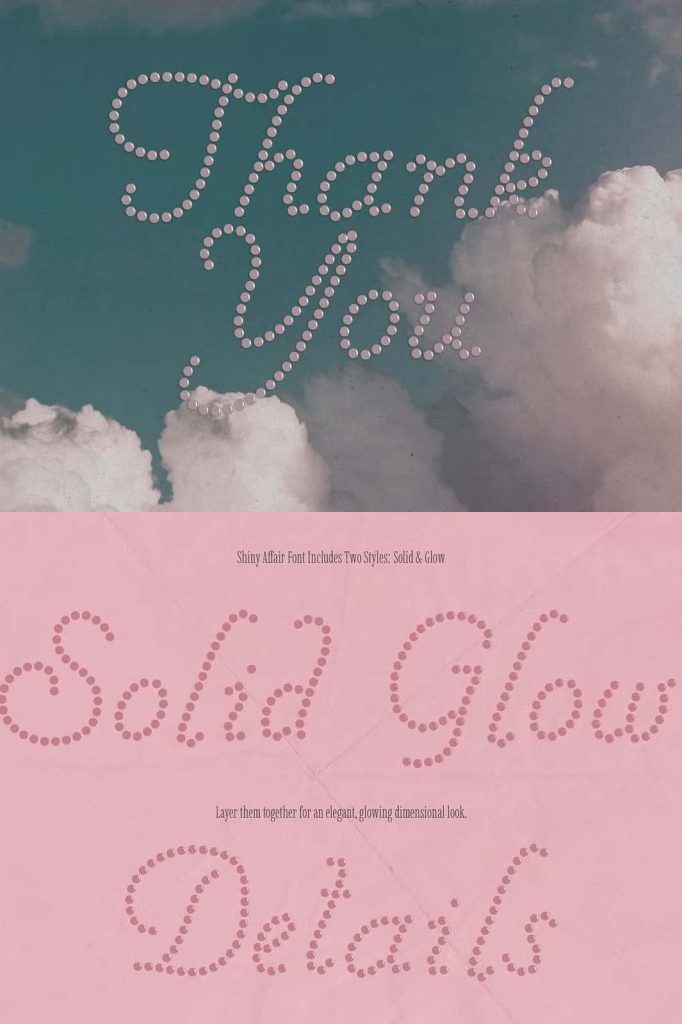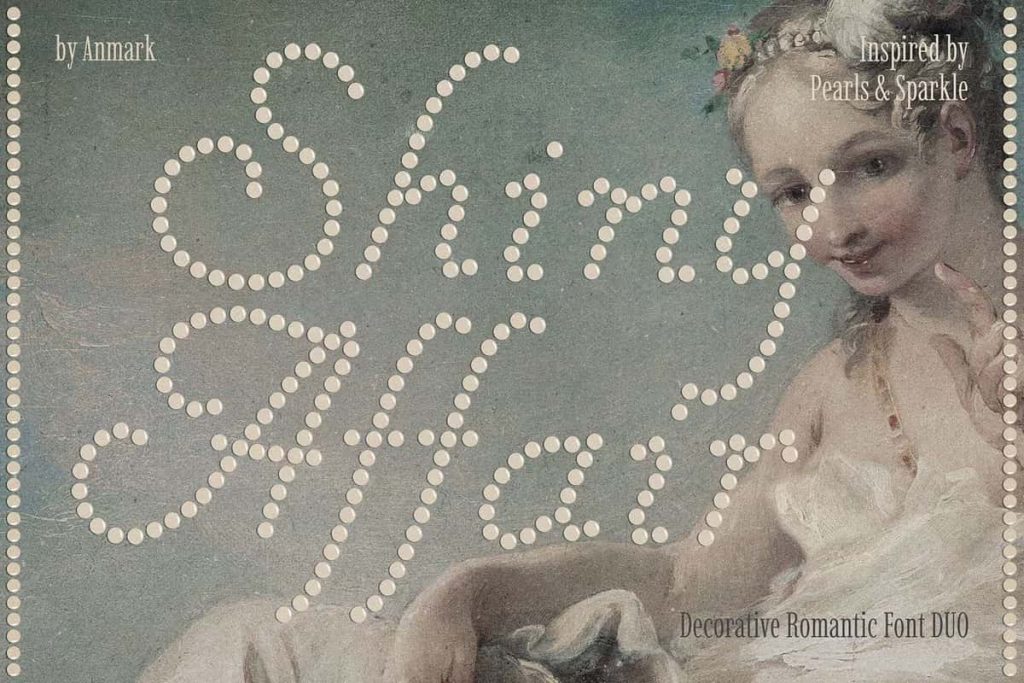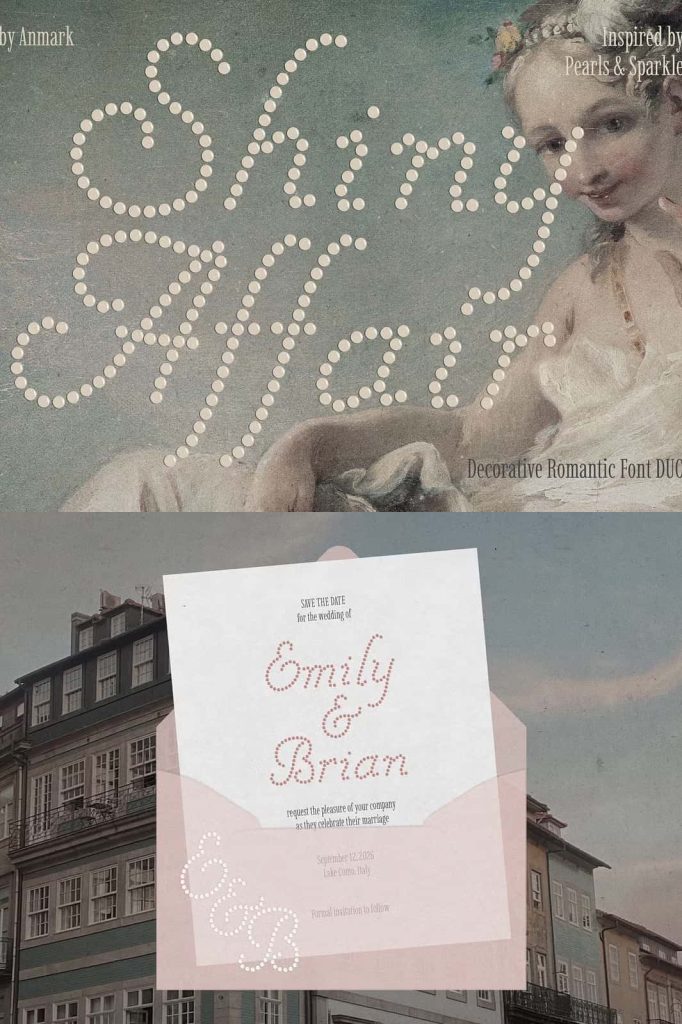
Shiny Affair Font Duo – A Decorative Romantic Script with Elegant Pearl-Inspired Details
Shiny Affair Font Duo is a beautifully crafted decorative script typeface that combines romance, elegance, and playful sophistication into one unforgettable font collection. Inspired by the timeless beauty of pearls and the gentle sparkle of soft light, this font duo introduces a unique dotted texture that gives every letter a delicate handcrafted appearance. The result is typography that feels luxurious without becoming overwhelming, making it an excellent choice for designers who want to create memorable and emotionally engaging visual experiences.
Every character has been carefully designed to balance graceful curves with refined decorative details. The flowing script captures the warmth of handwritten calligraphy while the distinctive dotted texture adds a subtle sense of charm and elegance. Whether used for branding, invitations, product packaging, or social media graphics, Shiny Affair transforms ordinary text into beautiful typography that immediately attracts attention.
Its combination of expressive letterforms and sophisticated decorative elements allows designers to create projects that feel stylish, feminine, and timeless across both print and digital media.
Inspired by the Beauty of Pearls and Soft Sparkle
The creative inspiration behind Shiny Affair comes from the natural elegance of pearls, gentle reflections of light, and romantic decorative details found in luxury stationery and handcrafted artwork. Instead of relying on bold visual effects, the font achieves its unique personality through carefully placed dotted textures that evoke the appearance of delicate pearl embellishments.
This subtle decorative treatment creates typography that feels refined and artistic while maintaining excellent readability. Every word appears handcrafted, adding warmth and personality to designs without distracting from the overall message.
The result is a font duo that communicates sophistication, romance, and creativity while remaining versatile enough for a wide range of professional design applications.
A Romantic Script Font with Decorative Character
Shiny Affair features elegant handwritten letterforms that flow naturally across every word. Smooth curves, balanced proportions, and graceful connections give the script a relaxed yet polished appearance, making it suitable for both formal and creative projects.
The decorative dotted texture adds another layer of visual interest, allowing headlines and featured text to stand out with a unique handcrafted style. Rather than appearing overly ornate, the decorative details complement the flowing script, creating typography that feels light, airy, and effortlessly elegant.
This thoughtful combination makes Shiny Affair ideal for designers seeking typography that captures romance while maintaining a clean and professional presentation.
Perfect for Wedding and Event Design
Wedding stationery and event branding require typography that conveys beauty, emotion, and sophistication. Shiny Affair delivers all three by combining graceful calligraphy with decorative pearl-inspired accents that enhance every composition.
From elegant wedding invitations and save-the-date cards to bridal shower decorations and anniversary celebrations, the font creates memorable designs filled with warmth and charm. Its refined appearance also makes it suitable for baby showers, birthday invitations, engagement announcements, and other meaningful occasions where visual elegance plays an important role.
The handcrafted style allows every invitation, greeting card, and decorative element to feel personal while maintaining a premium finish.
Create Elegant Branding with a Personal Touch
Shiny Affair is an excellent choice for businesses that want to communicate elegance while maintaining a welcoming personality. Its decorative script works beautifully for boutique brands, fashion labels, beauty salons, florists, event planners, luxury cafés, handmade products, and artisan businesses.
The font instantly elevates brand identity by adding handcrafted sophistication that feels authentic rather than artificial. Whether designing logos, business cards, product labels, or premium packaging, Shiny Affair creates visual consistency while helping brands establish a memorable presence.
The distinctive dotted texture further enhances product presentation, making packaging and promotional materials appear more luxurious and thoughtfully designed.
Versatile Across Print and Digital Media
Although highly decorative, Shiny Affair remains practical for a wide range of design applications. The carefully balanced letterforms preserve excellent readability in large display settings while maintaining their graceful personality across printed materials and digital platforms.
If you are searching for a decorative script font that balances elegance, warmth, and artistic personality, Shiny Affair Font Duo is an outstanding addition to your typography collection. Its pearl-inspired details, flowing letterforms, and refined decorative style ensure every design communicates beauty, sophistication, and lasting visual appeal.